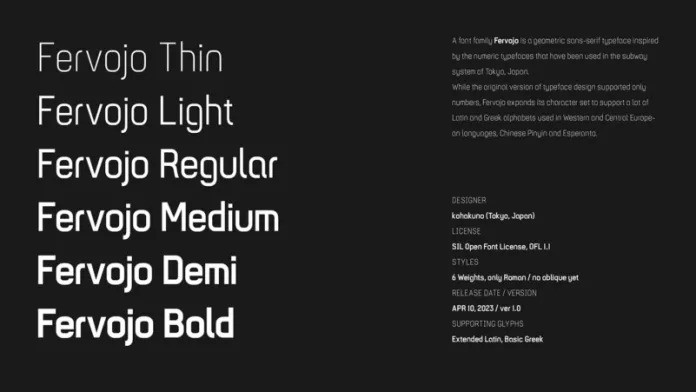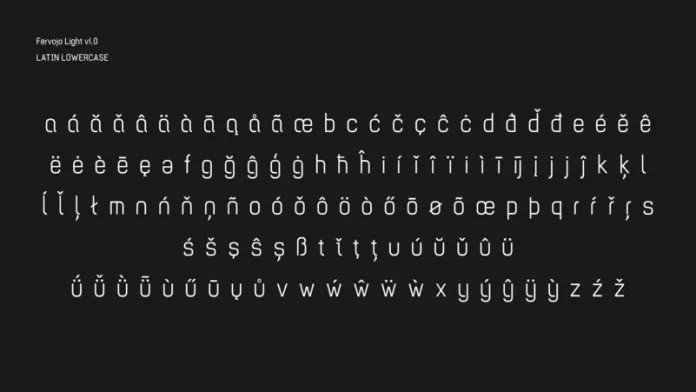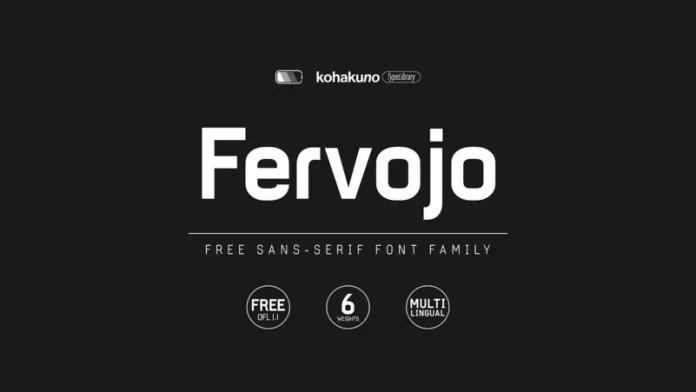
Fervojo Font
Fervojo font family is a geometric sans-serif typeface inspired by the numeric typefaces that have been used in the subway system of Tokyo, Japan (the original numeric typeface is also called “Eidan-Numbers” or “Eidan-Typeface”).
While the original version of the typeface design had only numbers, Fervojo expands its character set to support a lot of Latin and Greek alphabets used in Western and Central European languages, Chinese Pinyin, Esperanto, etc.